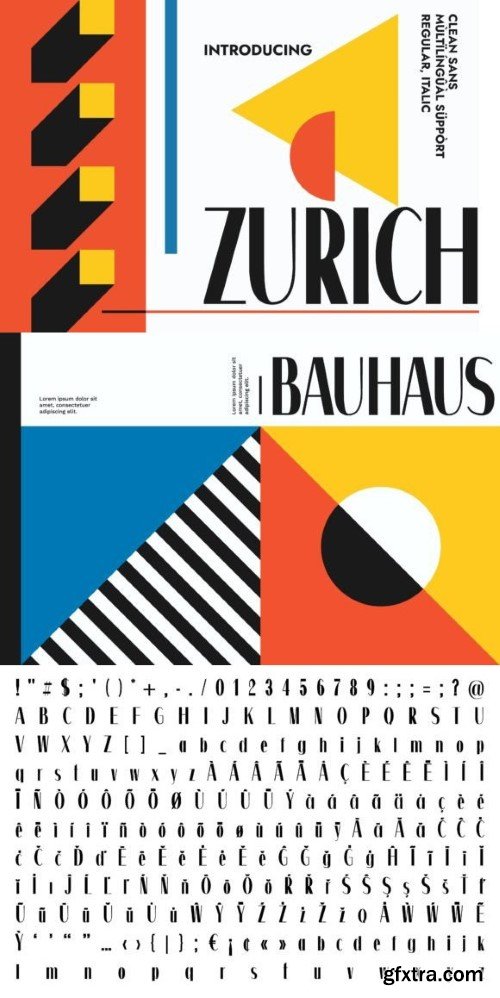
Zurich Font
Zurich as the name suggests is a cute and clean sans serif typeface. It was designed keeping in mind the swiss design rules and modernizing them in a way that it kept the rigidness of the swiss fonts such as Helvetica and designing each glyph adding a vivid contrast to the letter construction in a way that renders it geometric, clean and delicate.